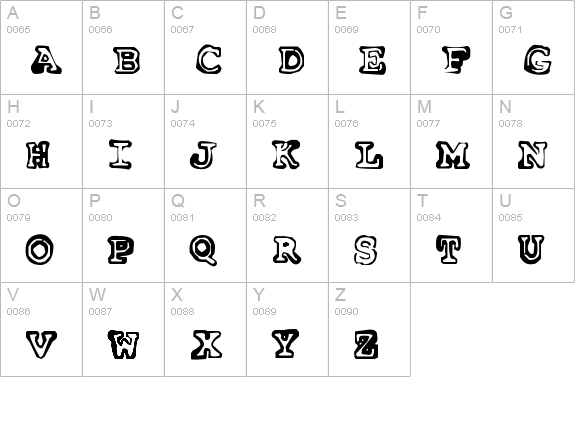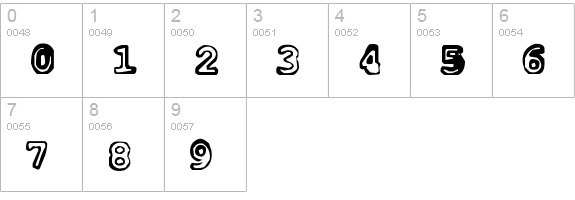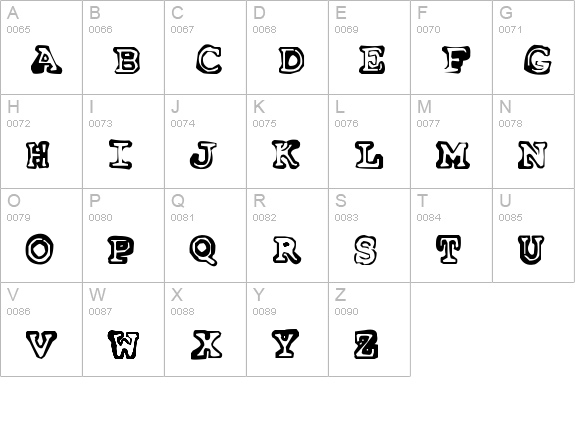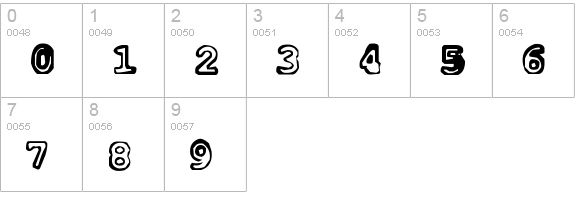
Insomnia (3am) Font Details
Introducing Insomnia (3am) font, a captivating typographic masterpiece that will keep your eyes locked in its spellbinding allure. This font is a perfect blend of elegance, mystery, and sophistication, designed to leave a lasting impression on any project it graces. Insomnia (3am) font exudes a sense of nocturnal enchantment, as if each character was meticulously crafted under the moonlit sky. Its intricate and slightly distorted letterforms create an air of intrigue, making it ideal for designs that demand attention and intrigue. With its unique and mesmerizing style, Insomnia (3am) font is a versatile typeface that can effortlessly enhance a wide range of design projects. Whether you're designing a poster for a captivating film, creating a spellbinding logo, or crafting an otherworldly book cover, this font will breathe life into your ideas and bring them to a whole new level. One of the most exceptional aspects of Insomnia (3am) font is that it is freely available for download at FontsMarket.com. This means that you can instantly add this extraordinary typeface to your collection without any cost. It's truly a gift for designers and creatives who seek to push boundaries and ignite their imagination. Unleash your creativity and let Insomnia (3am) font transport you to a realm where possibilities are endless and design knows no bounds. Download this font today, and watch as your projects come alive with a touch of nocturnal magic.